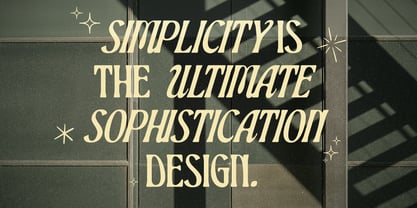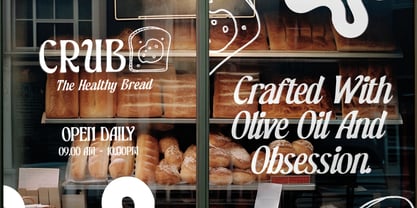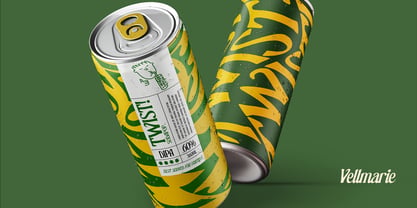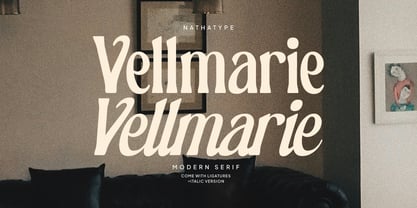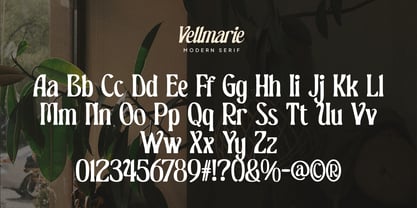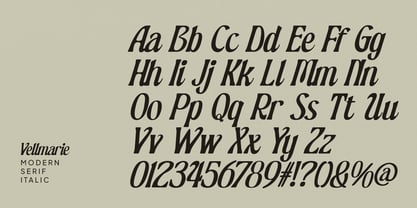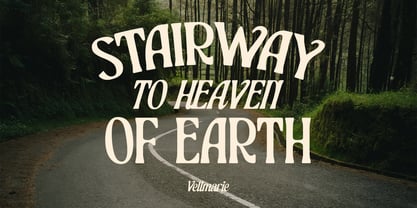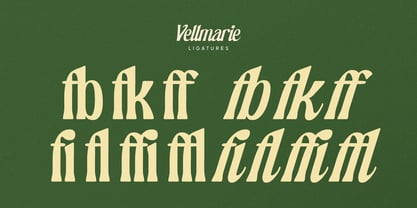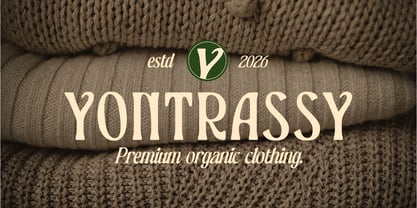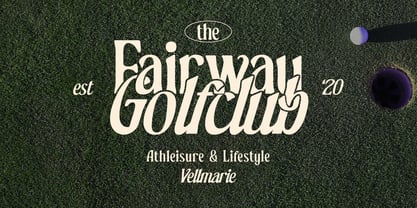
Vellmarie
by Nathatype
Vellmarie is a refined modern serif font. At the heart of Vellmarie’s design is its simplicity and clarity. The letterforms are carefully constructed with subtle serif details that add character without overwhelming the overall design. This minimalist approach creates a modern aesthetic that feels polished, stylish, and highly readable. Whether used in large headlines or smaller text elements, Vellmarie maintains a graceful presence that enhances the overall visual composition. This font becomes more special with Italic version. In addition, enjoy the features here. Features: Multilingual Supports PUA Encoded Numerals and Punctuations Vellmarie fits in logos, quotes, branding, posters, and many more designs. Find out more ways to use this font by taking a look at the font preview. Thanks for purchasing our fonts. Hopefully, you have a great time using our font. Feel free to contact us anytime for further information or when you have trouble with the font. Thanks a lot and happy designing.